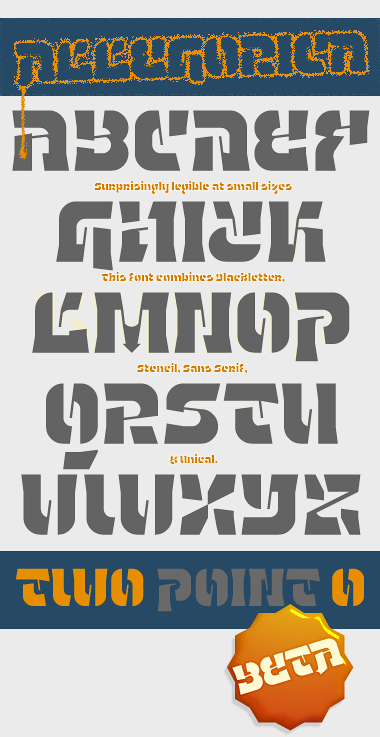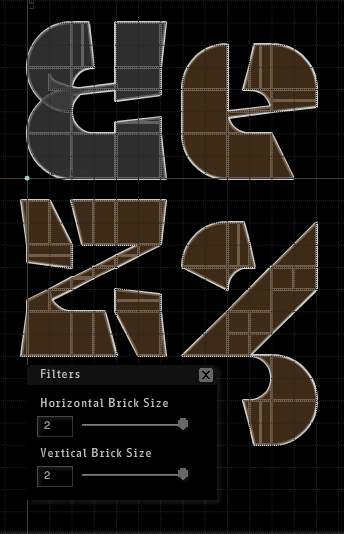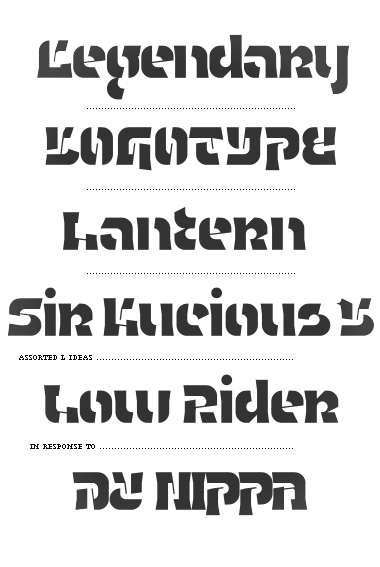
Wow! That one is just brilliant! I love the thin lines in the uppercase and the harmony between corners and curves etc. Looks like a futuristic aztecs font! Great work!
what a beauty. the uc is inspired. a wonderful mash-up of several types. who could ever conceive, let alone execute such a marvel? we know now.
Personally, I don't like the arrow in the capital M, but it is a 10 nevertheless.
This one is really remarkable!
@laynecom: You’re right, the M is a hard one to crack on this fontstruction. I have included an alternate for your consideration. Glad you enjoyed it all the same!
@tylo: Interesting, the Mesoamerican angle hadn’t occured to me at all. The new M definitely agrees with you! Thanks for the cool feedback.
@funk_king: And thank you for the high praise :) I always thought the original lc had a bit of a blackletter flavor, so I wanted to play that part up in the uc. The unical aspects are still perhaps the most gimmicky (but made for an easy E once I made the B). I think the sans hybridizing is what saves it. These approaches simply weren’t possible for me until the introduction of fs 2.0 and composite bricks. The stencil approach ... an extention of the lc and one approach to managing this small grid perhaps, and still a bit crazy. :)
I'm stunned. This is immense. It's elegance and uniqueness is unsurpassed. The upper case takes the biscuit. I love the little inner suggestive lines. One of the coolest stencils on the planet.
Maybe I'd possibly curve the right side of the D....maybe. :-)
On usage, L needs work. It doesn't read right at all.
Here are a few variations (except the first one, that's your original design). I also think you can do a better V, and maybe move the horizontal bar on A, a bit lower.
The current L would make a better 5.
It just oozes brilliance from each glyph. Mark of genius to come up with the initial idea and mark of true craftsmanship to see it through it all. The height of originality can be seen in the @. Can we see a screenshot blowup of one of the characters to see how it was done?
PURE DELIGHT. It's the best stencil font I've ever seen. Gorgeous job. I wish i could rate it 11 stars.
Defo the first 'L'. It rocks.
This font is so insanely cool, I'm embarrassed to have my High Voltage in the Featured box right now...
Seriously, there is so much character and style in here, and such a uniqueness... And all of this on such a small and smartly used grid. Even I would award an 11 if there was one, and I hardly ever give the full 10. ;)
The really cool thing I guess (and admittedly the point that makes me jealous:P) is that this isn't a font that builds itself from a set of implicit rules; every single character is a creation of its own, not obvious at all, but the way you did them still perfectly fitting into the "big picture". Typography is - in my perception - often only a little about creativity: you just need the initial spark, and the rest of it is handcraft. This is here is creativity from A to Z. And beyond, of course. ;)
definitely different from the original here, but what was lost in swishyness is gained with a more extensive and consistent application of that lovely stem created by will.i.ૐ. both have a very calligraphic feel - yours more stylized and 'regimented' with the stem and will.i.ૐ's more natural feeling. both amazing work, esp. for modular fonts.
I had not seen this before. Very striking, very unusual. Those delicate hairlines are pure genius and the design overall like magic.
What a complicated design! I want to see inside.